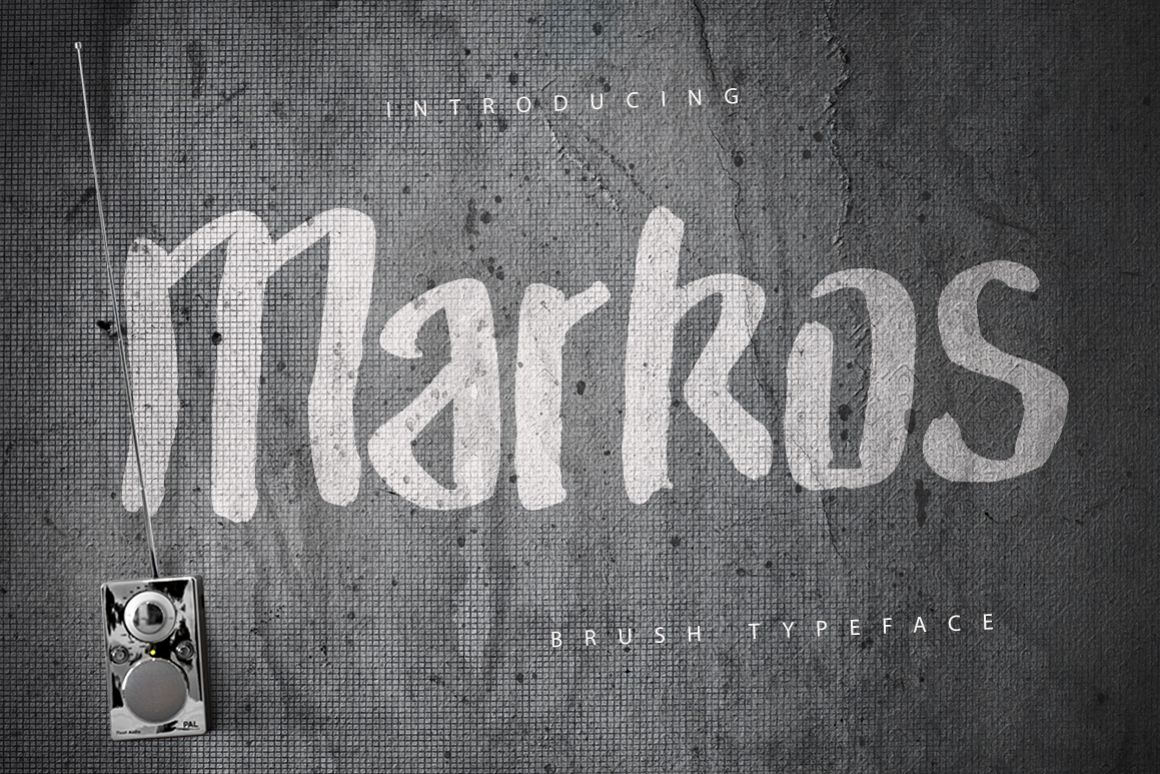
Markos Brush Typeface
Markos is a strong rough brush type font that comes in 3 variations.
All letters. All numbers. All punctuations. All extensions. All symbols